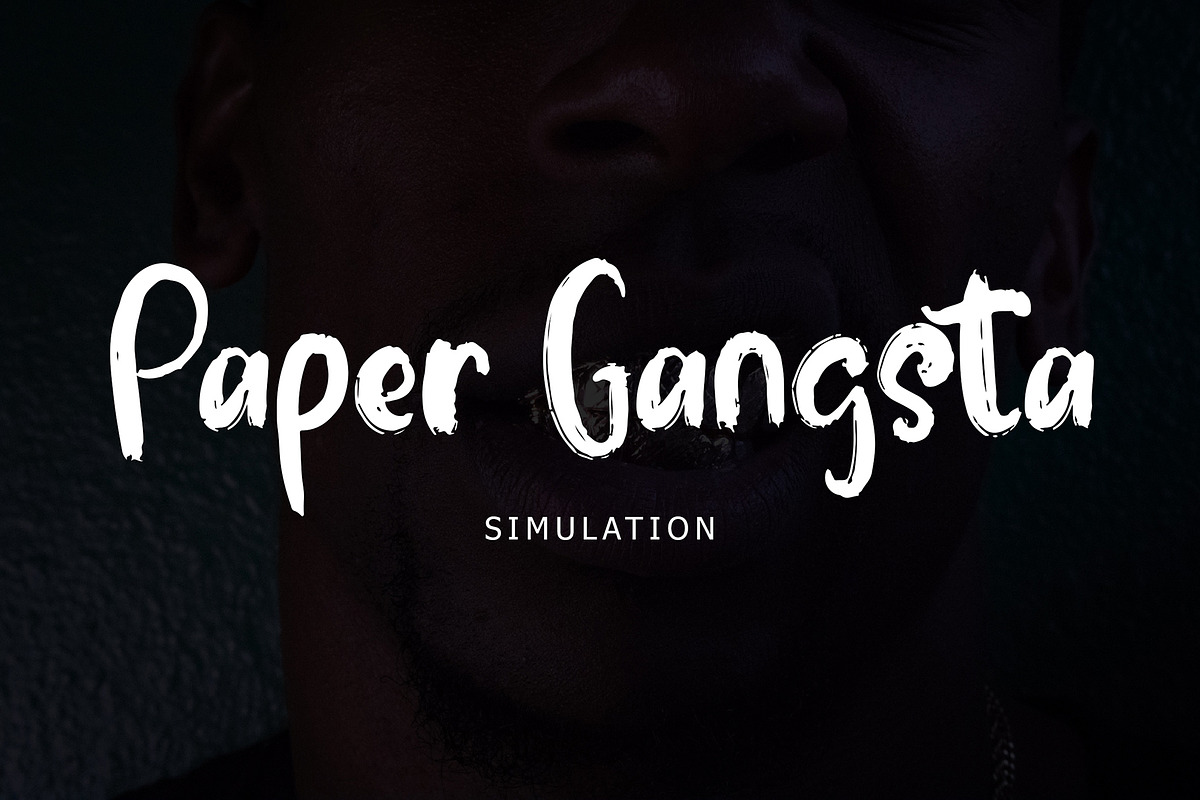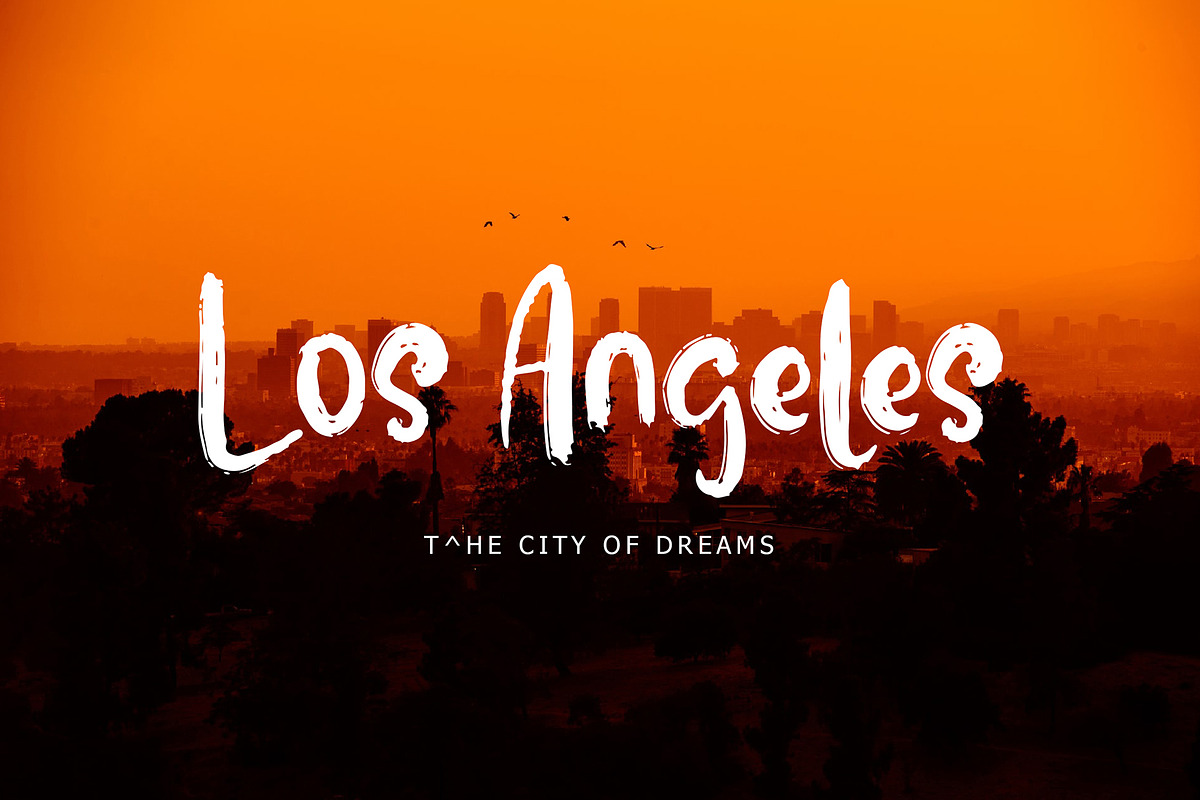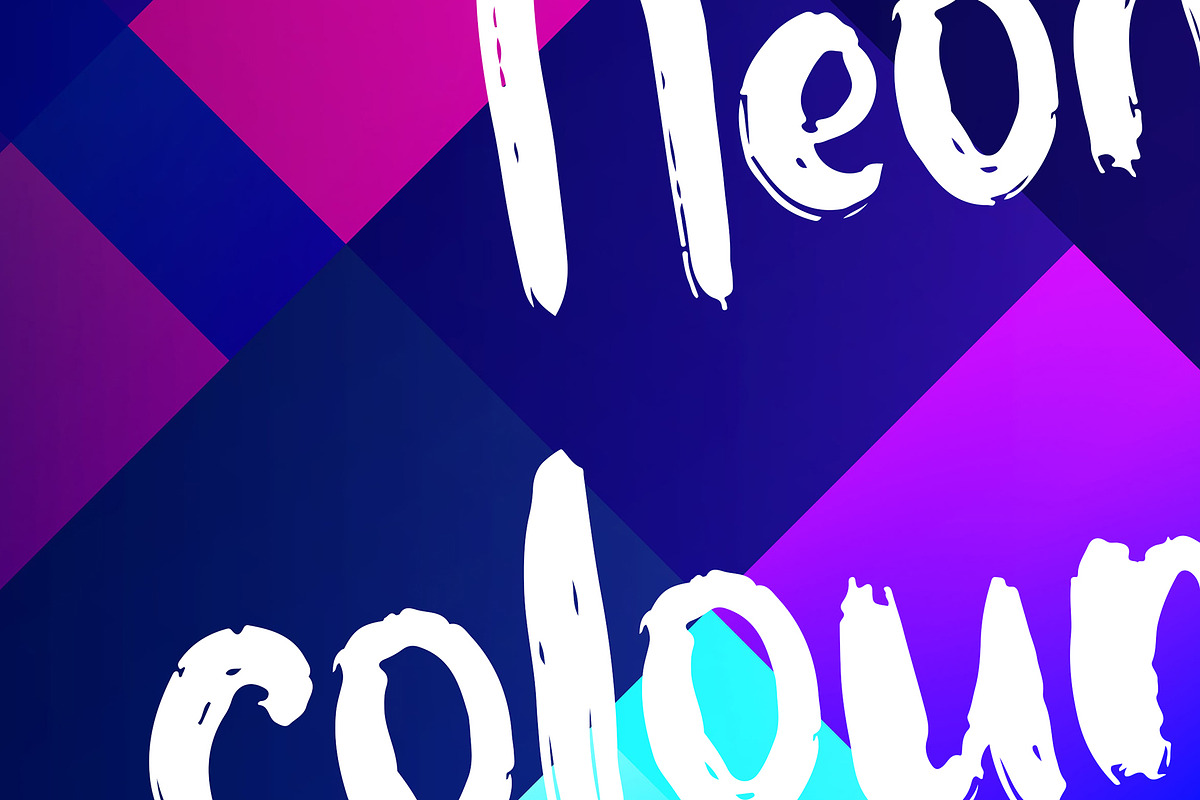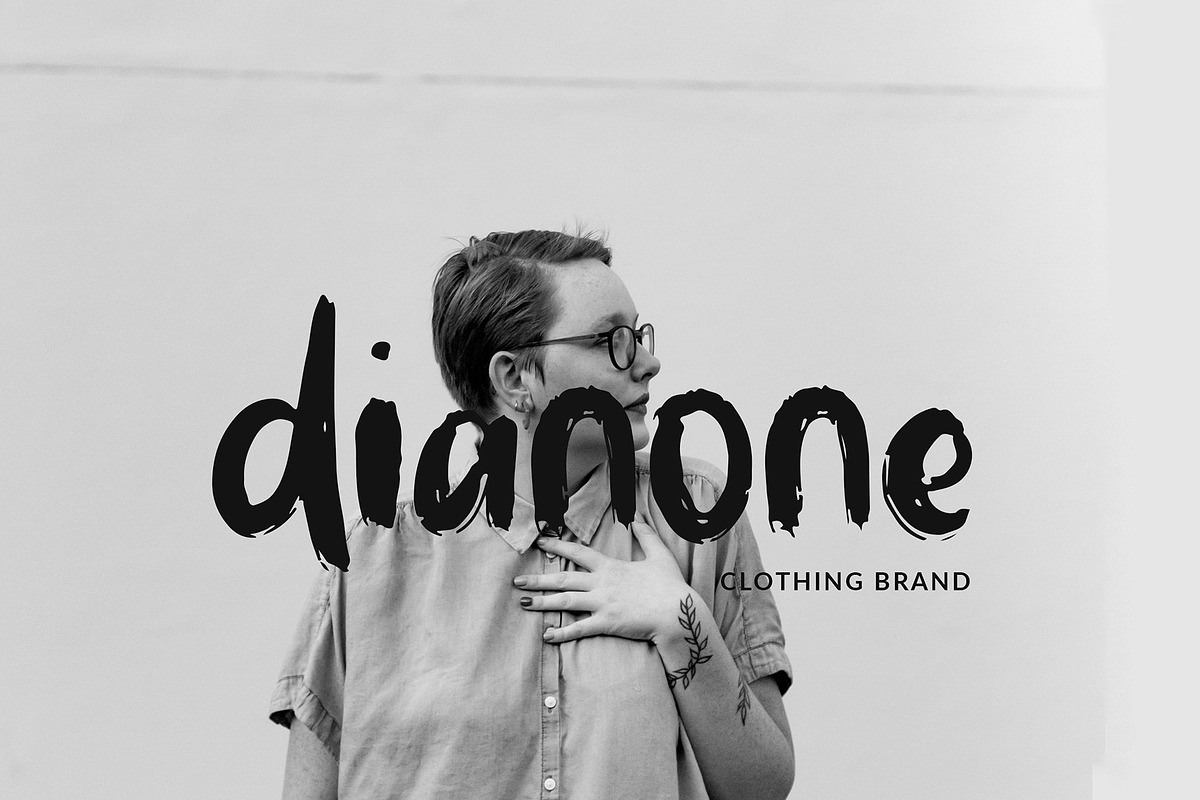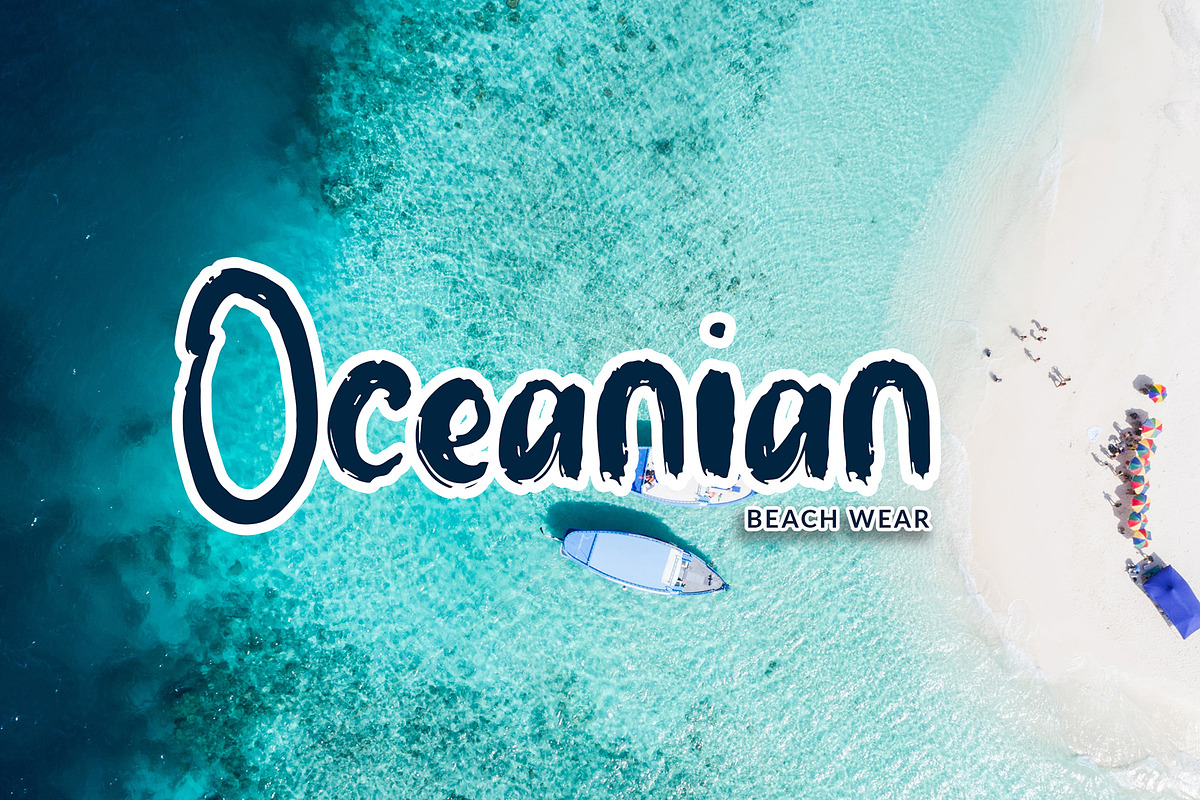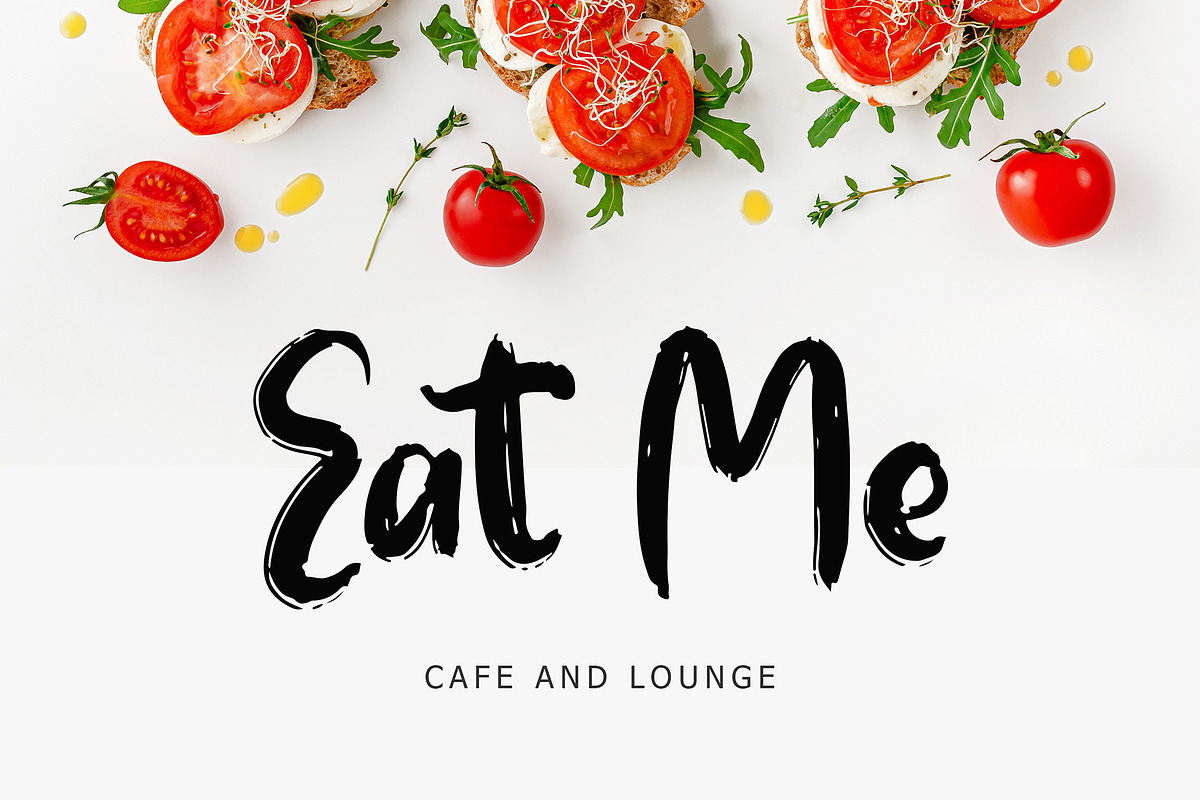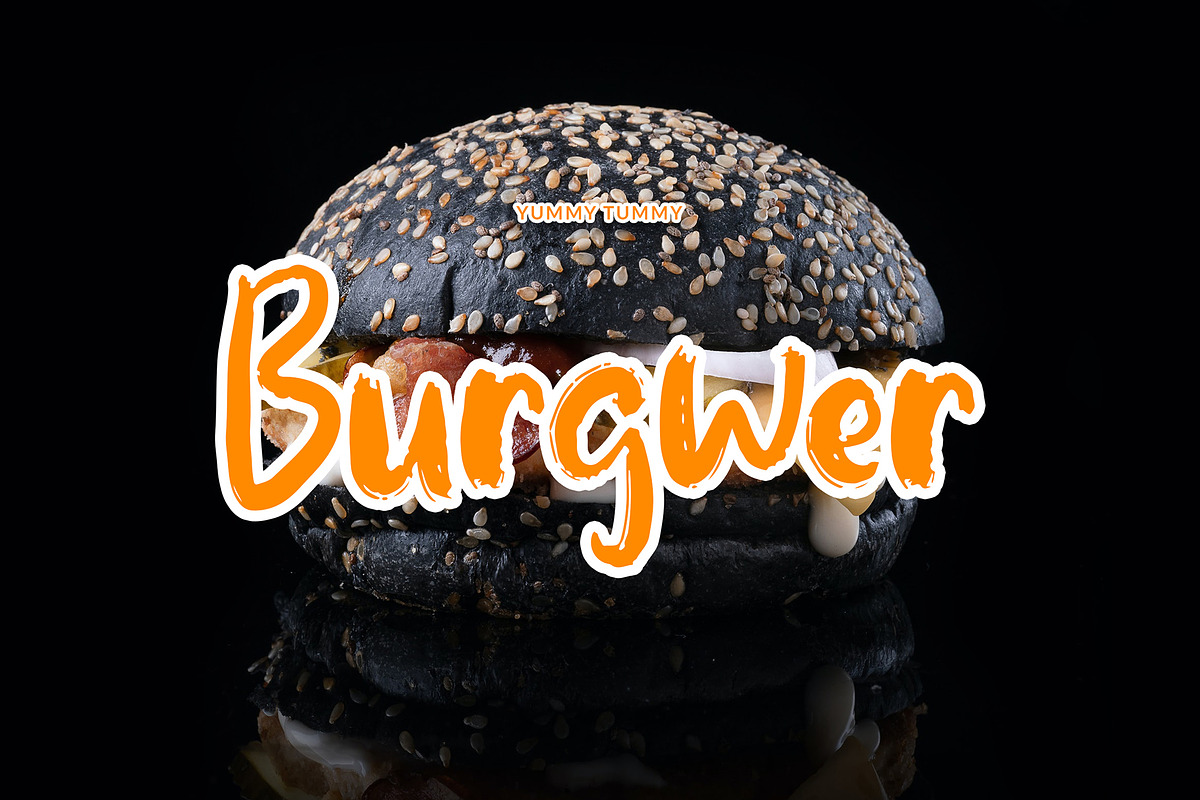
Arugula Brush Handwritten Font
Arugula Brush Handwritten Font is a Brush effect font, can make your text appear sporty, energetic, and modern!
Arugula is perfect for branding projects, logo, wedding designs, social media posts, advertisements, product packaging, T-shirt design, product designs, label, photography, watermark, invitation, stationery, and any projects.
Arugula Brush Handwritten Font by Giant Design fits naturally into Branding, posters, packaging, typography.